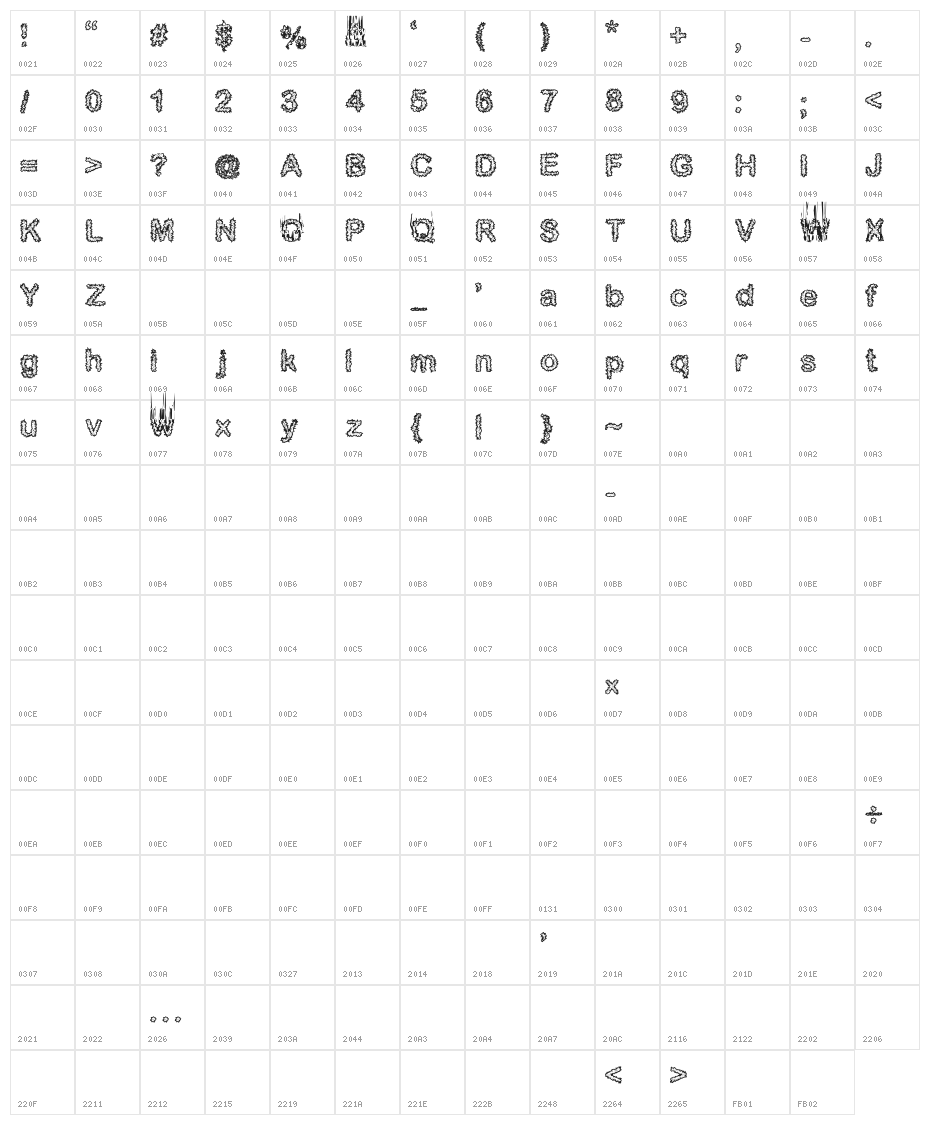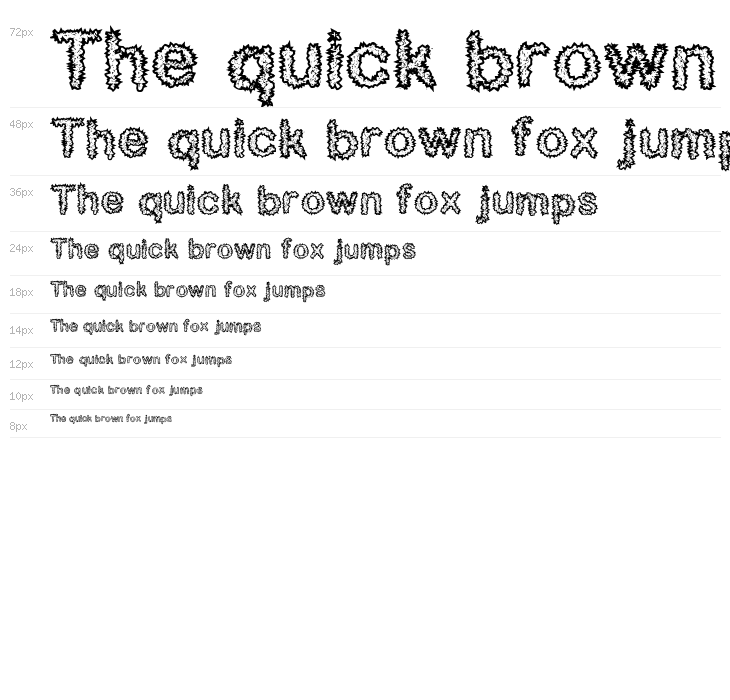
Gerigi Font
Gerigi Description
This font features a highly decorative and jagged design, reminiscent of gears or mechanical elements. Each character is outlined with a spiky, gear-like texture, giving it a unique and edgy appearance. The uppercase and lowercase letters maintain a consistent style, with the jagged edges creating a sense of movement and energy. The numbers and special characters follow the same design principle, ensuring a cohesive look across all glyphs. This font is ideal for projects that require a bold and industrial aesthetic, making it perfect for titles, posters, or any design that aims to capture attention with its unconventional style.
| Proposed Projects | Ideal for posters, album covers, video game titles, or any project needing a bold, mechanical look. |